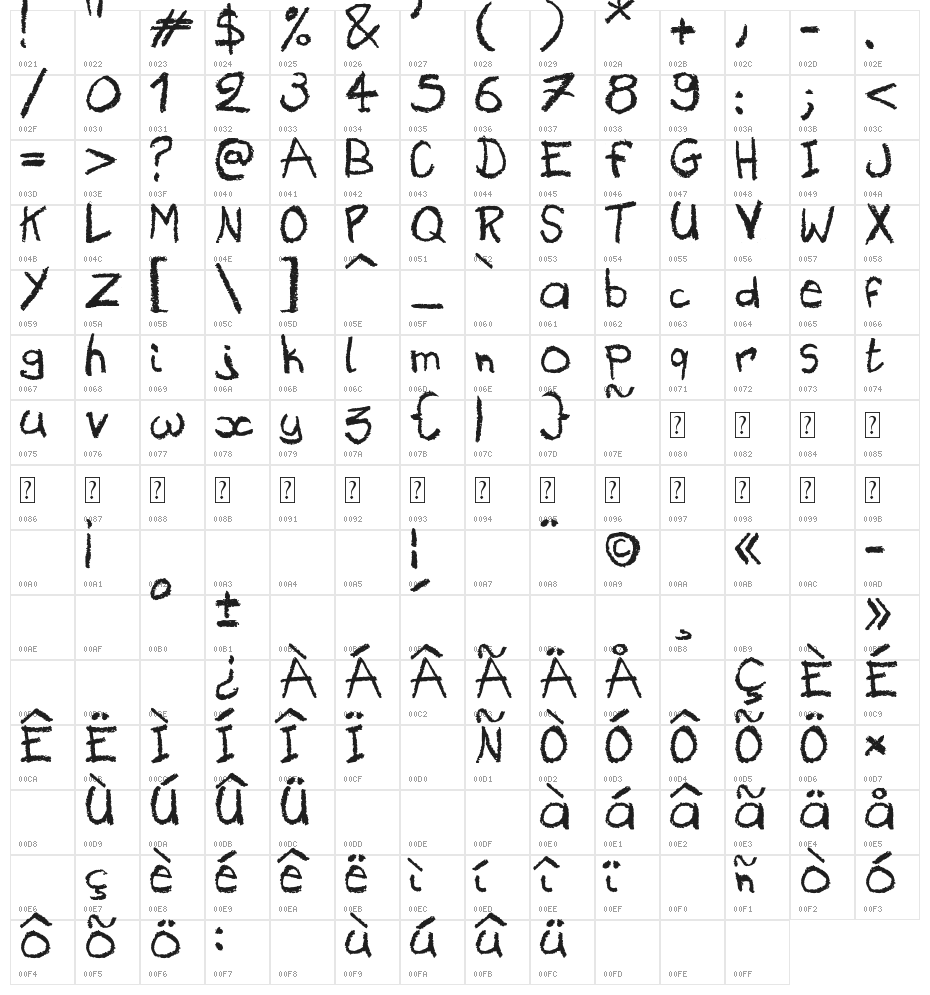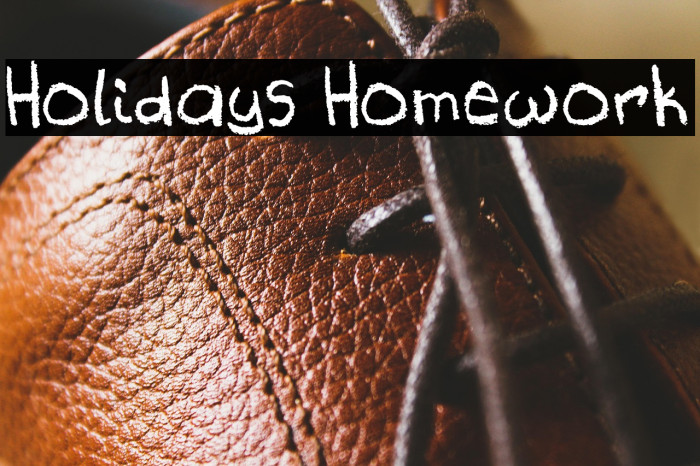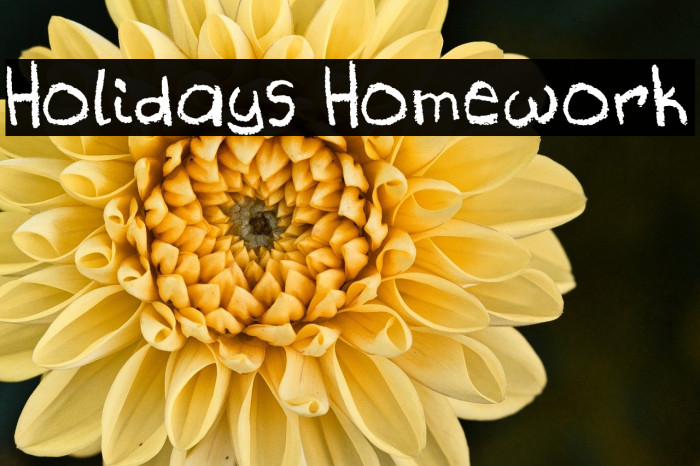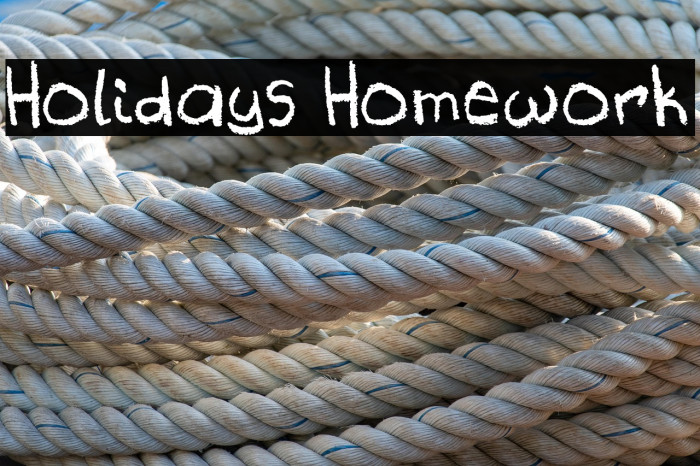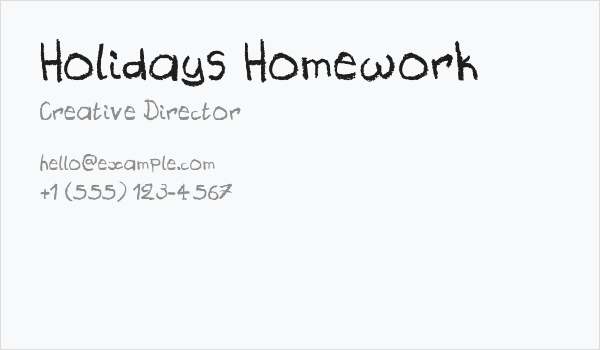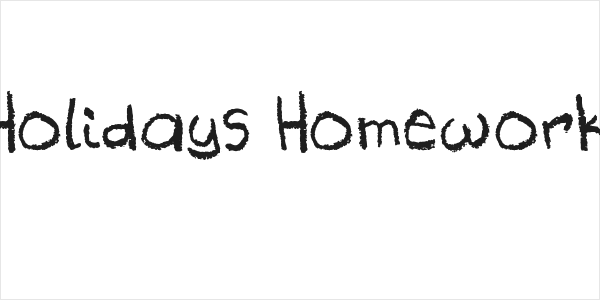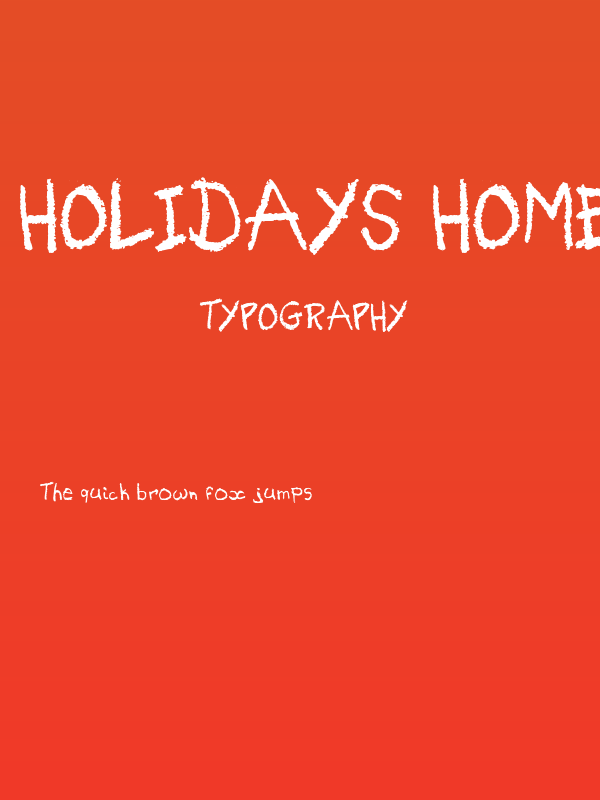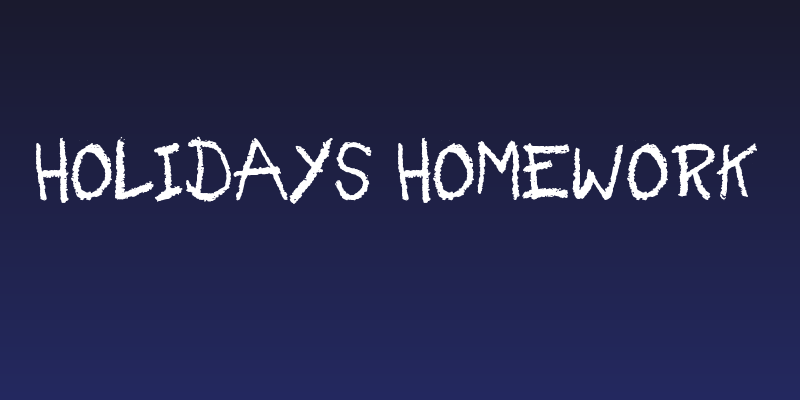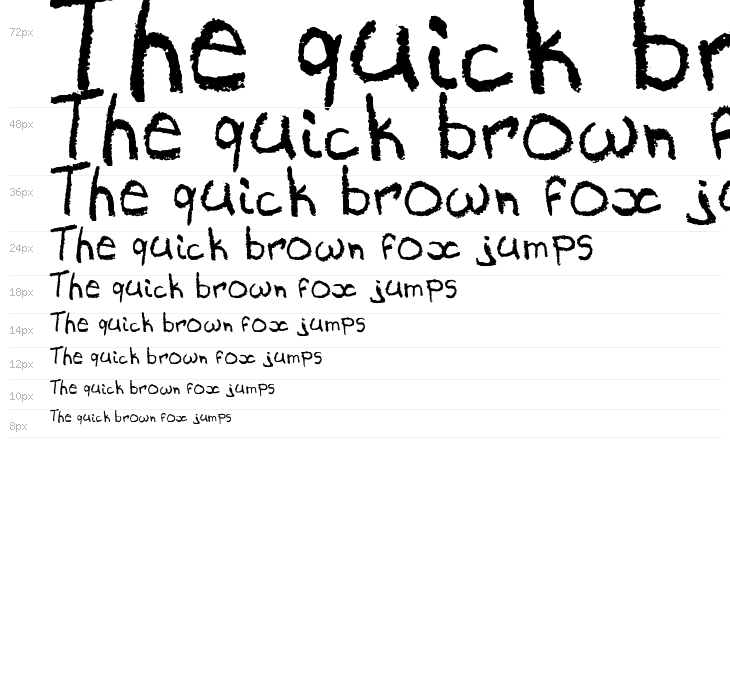
Holidays Homework Font
Holidays Homework Description
This font exudes a playful and casual handwritten style, reminiscent of chalk or crayon drawings. The characters are irregular and slightly rough around the edges, giving it a spontaneous and lively appearance. The uppercase and lowercase letters maintain a consistent style, with a slight slant and varying stroke thickness that adds to its informal charm. The numbers and special characters follow the same whimsical design, making it suitable for projects that require a touch of creativity and fun. Its unique texture and uneven lines make it stand out, perfect for capturing attention in creative designs.
| Use Case | Headlines, Creative projects, Informal designs |
| Proposed Projects | Ideal for children's book covers, playful posters, casual invitations, and creative branding. |